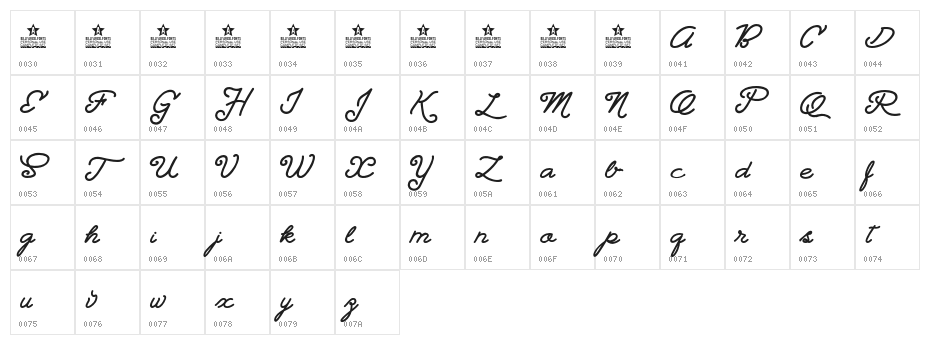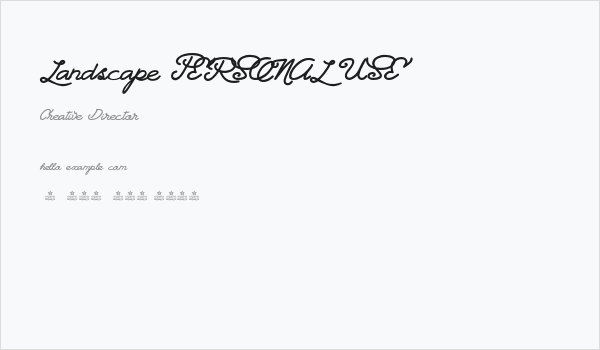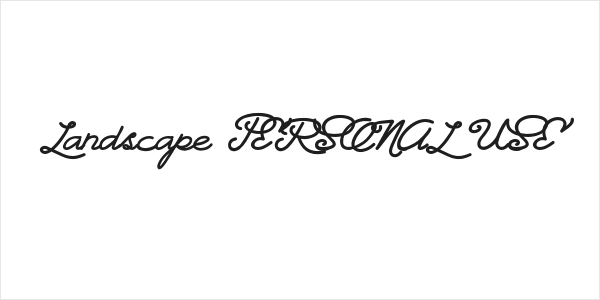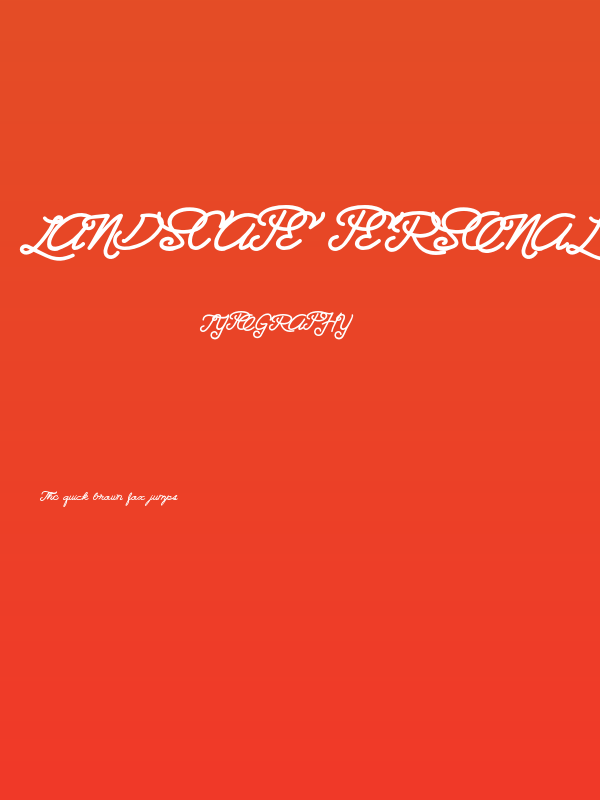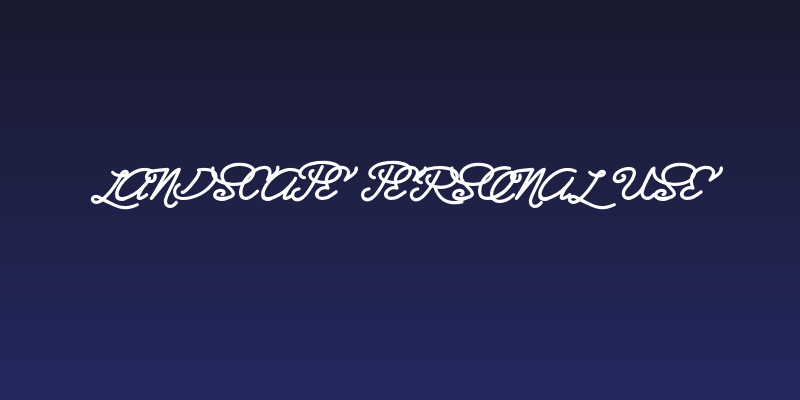
Landscape PERSONAL USE Font
Landscape PERSONAL USE Description
This font features an elegant, flowing script style that mimics the fluidity of handwriting. The uppercase letters are bold and sweeping, with intricate loops and curves that add a touch of sophistication. The lowercase letters maintain this fluidity, offering a consistent and harmonious appearance. The numbers and special characters are designed to match the overall aesthetic, ensuring a cohesive look across all text. This font is ideal for projects that require a personal, artistic touch, such as invitations, greeting cards, or branding materials.